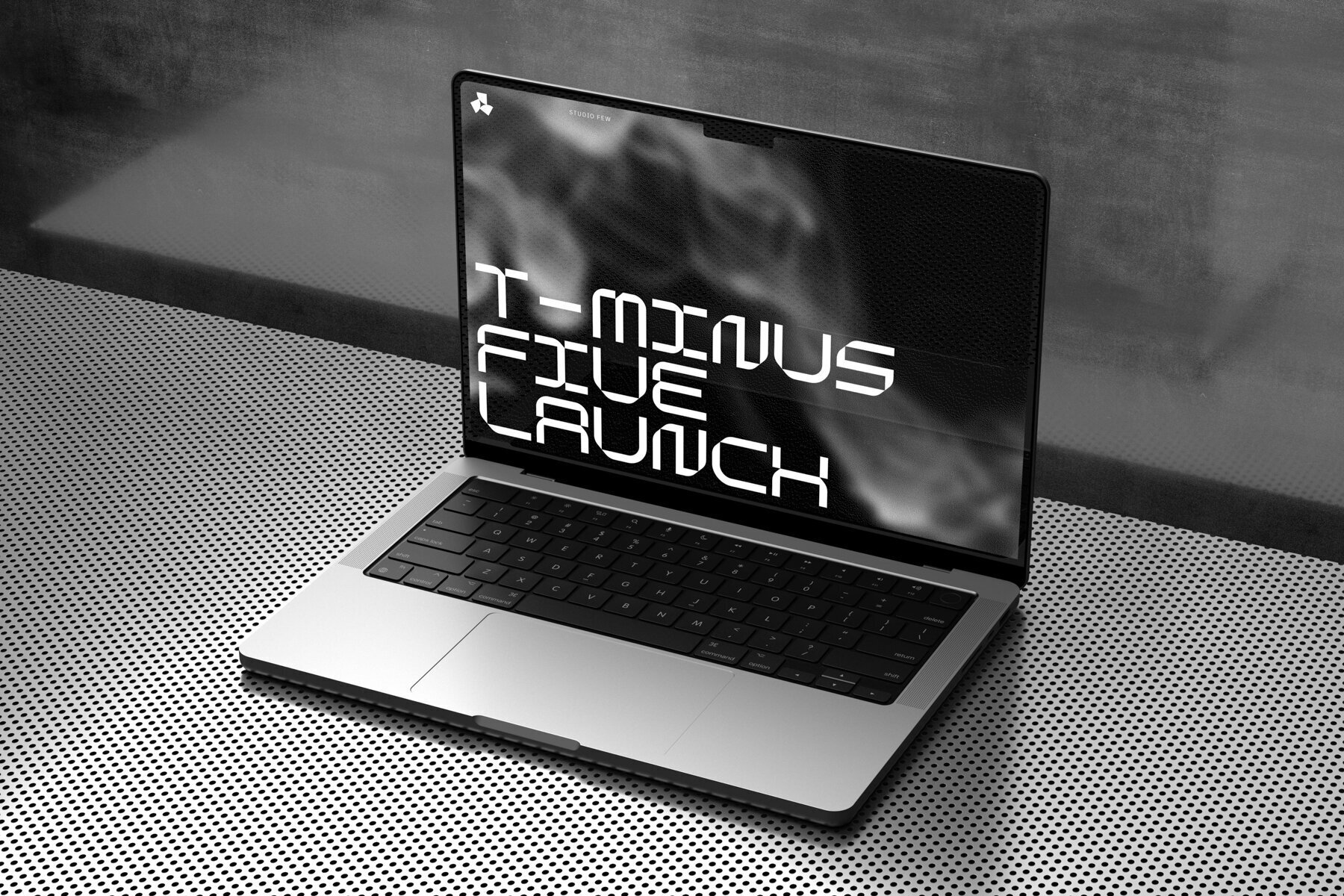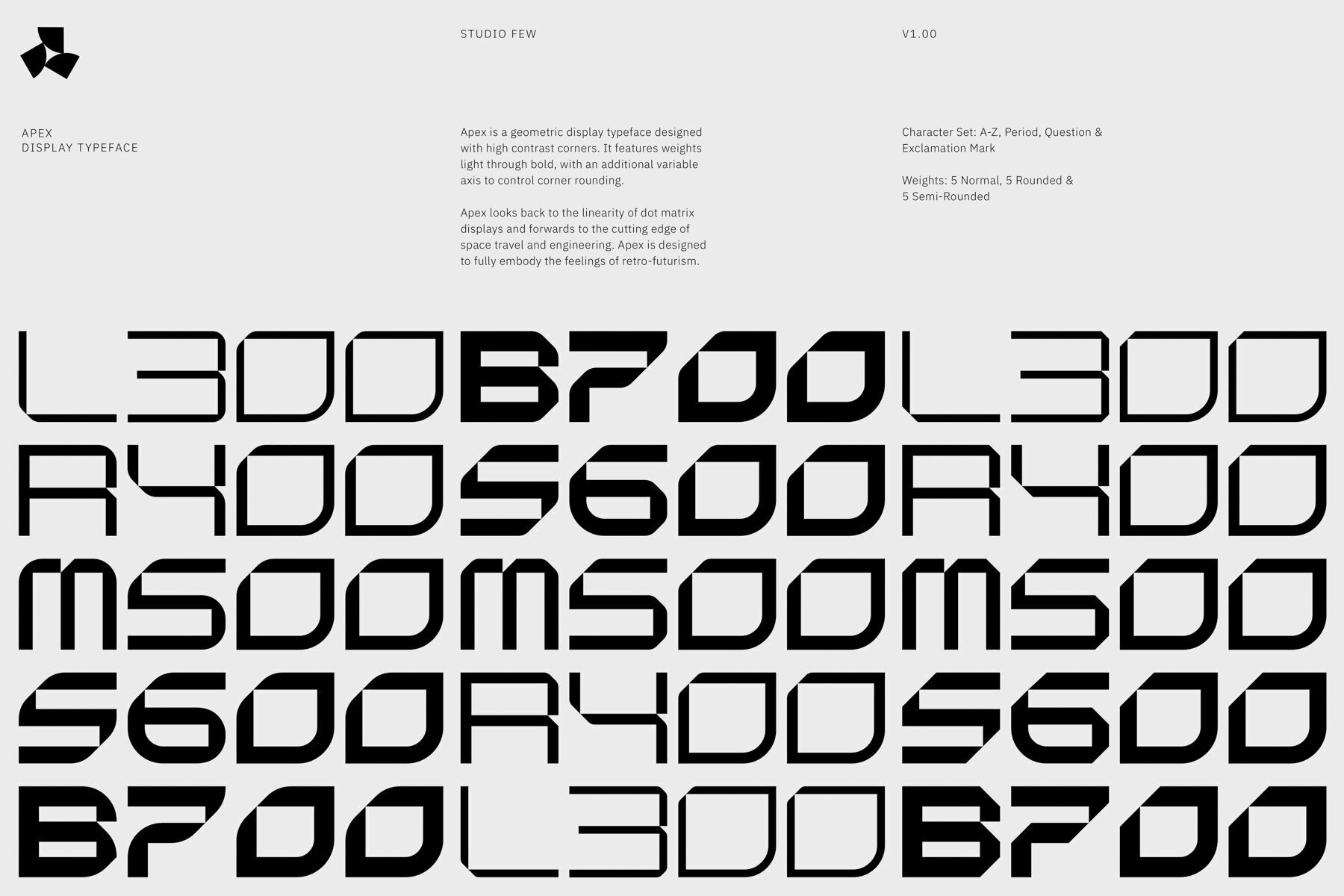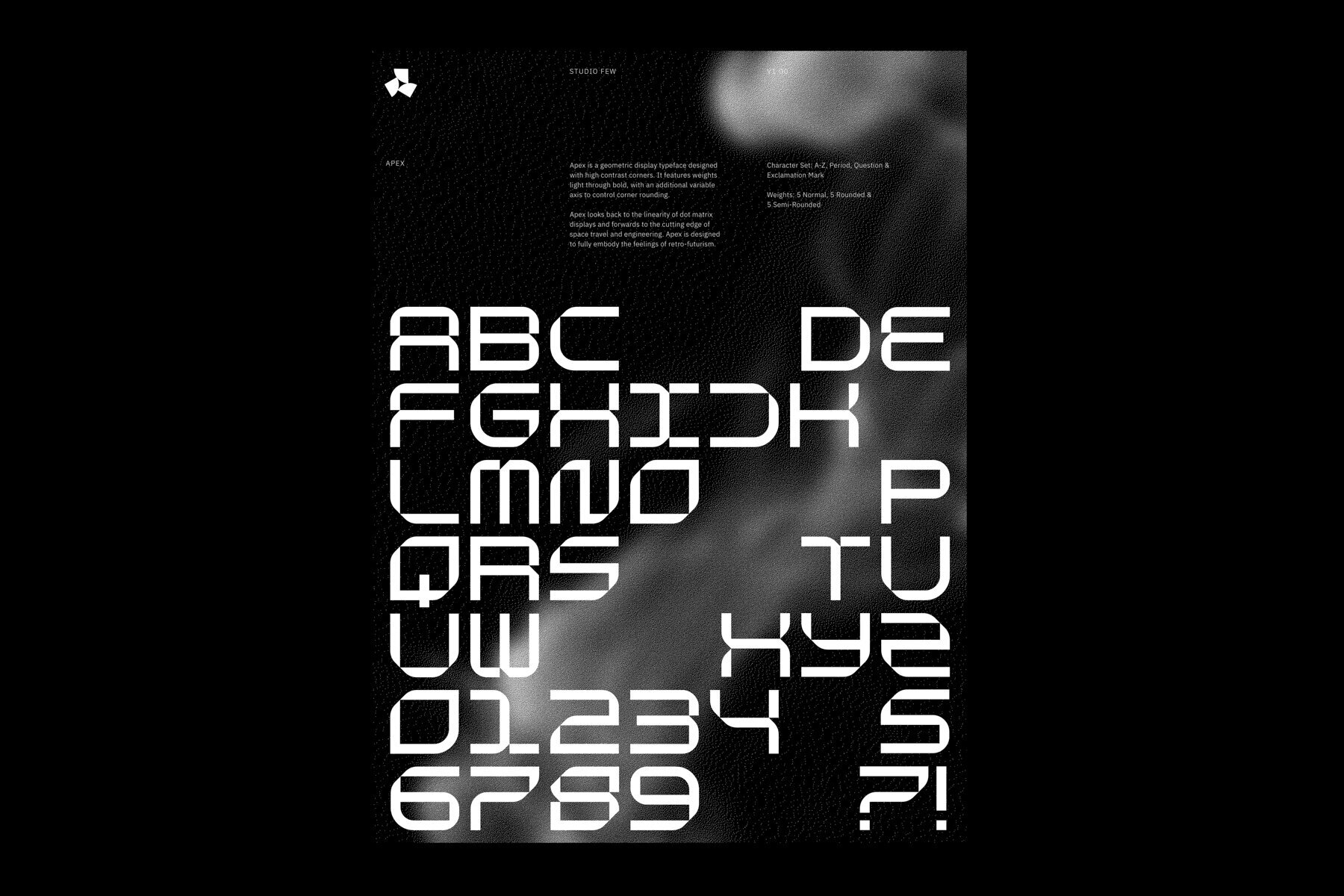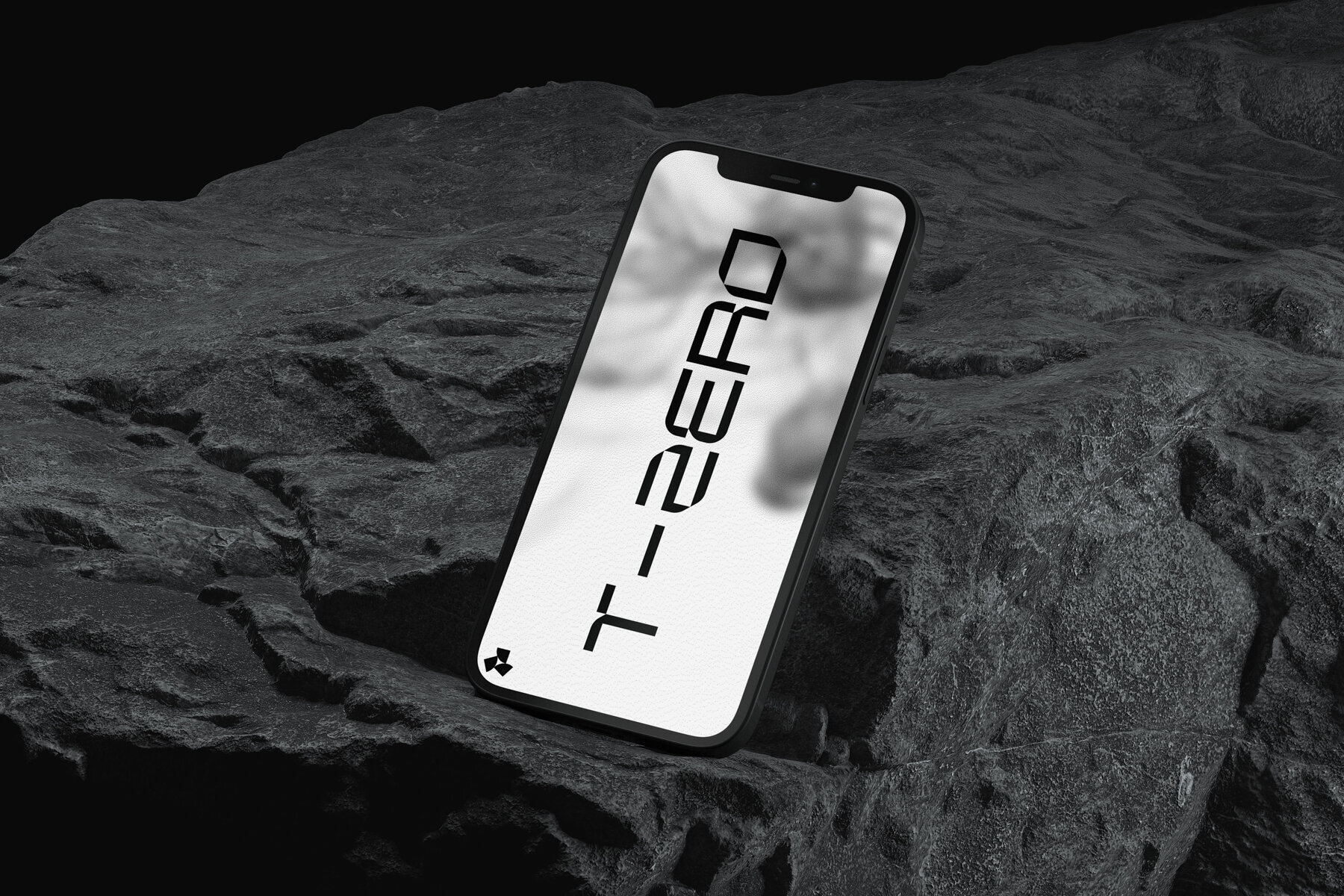
Apex Font
Apex is a geometric display typeface designed with high contrast corners. It features weights light through bold, with an additional variable axis to control corner rounding. Apex looks back to the linearity of dot matrix displays and forwards to the cutting edge of space travel and engineering. Apex is designed to fully embody the feelings of retro-futurism. Character Set: A-Z, Period, Exclamation & Question Mark Weights: 5 Normal, 5 Rounded, 5 Semi-Rounded